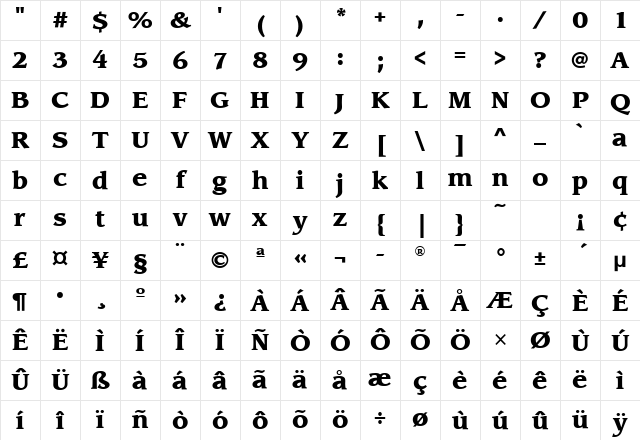
LeawoodMdITC echoes the hand-painted signage and woodblock typography of the American frontier, with a warm, rugged personality.
Font Pairing: Combine LeawoodMdITC with a simple slab or neutral sans - period-accurate companions reinforce the vintage feel without competing for attention.
Pro Tip: Use LeawoodMdITC for short, impactful bursts of text - it shines in poster headlines and product names rather than extended copy.